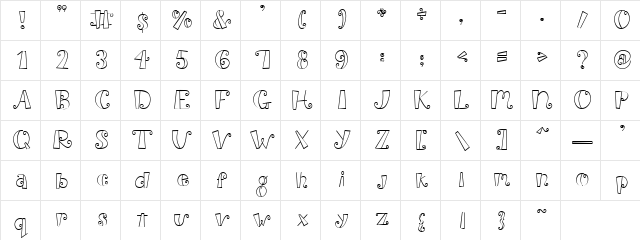
CK Anything Goes is a composed and adaptable typeface that performs quietly and consistently across a wide range of design contexts. Its slender proportions lend an understated elegance to any composition.
Pro Tip: Use CK Anything Goes in both headline and body roles to test its range before committing to a single application.